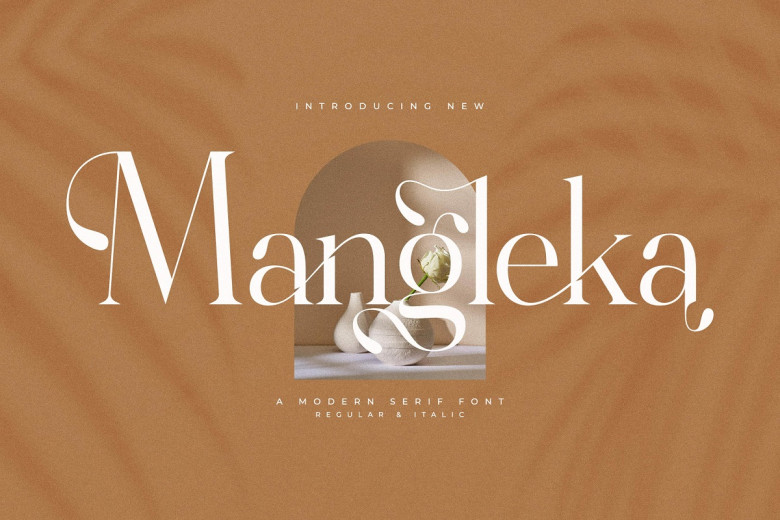
Mangleka Font
Mangleka offers a contemporary style derived from classic serif typeface. This font can be used in luxury logo designs, apparel designs, magazines, letters, quotes and much more.
Mangleka Serif Font